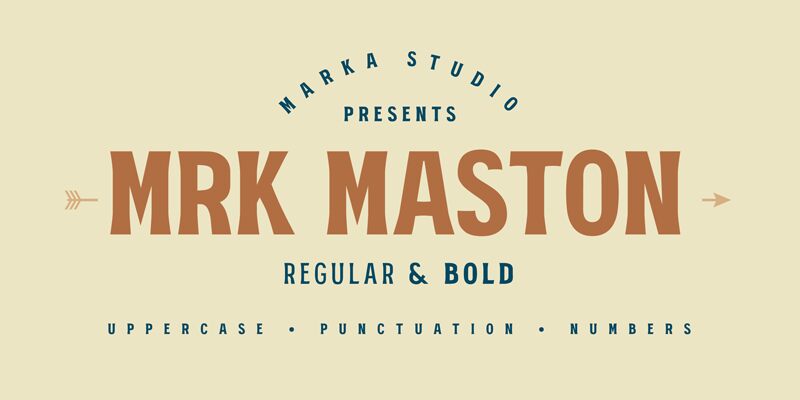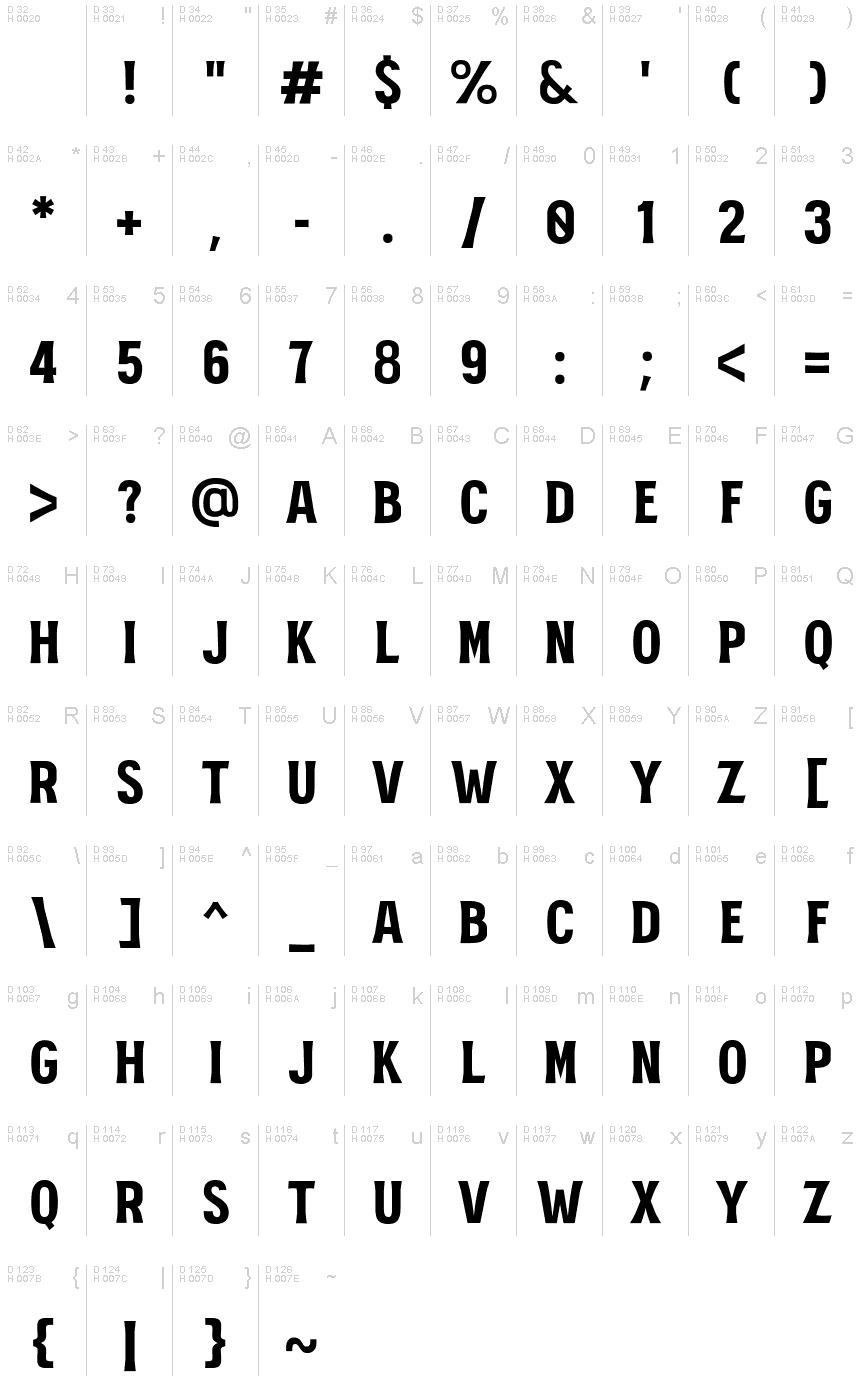
MRK Maston Bold
MRK Maston Bold is a captivating display font that channels the retro vibes of yesteryears. Its bold weight and semi-condensed width lend a strong and compact appearance, making it ideal for projects that aim to leave a lasting impression.
Whether you're designing vintage-inspired logos, eye-catching posters, or nostalgic packaging, MRK Maston Bold will effortlessly transport your audience back in time. This typeface's charismatic style adds an air of nostalgia to any creative endeavor, ensuring your designs stand out from the crowd with its distinctive retro flair.